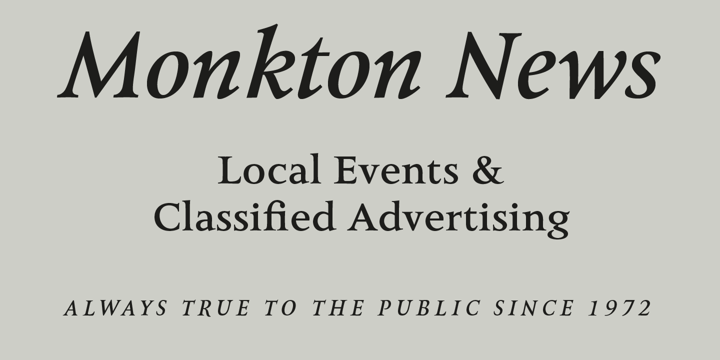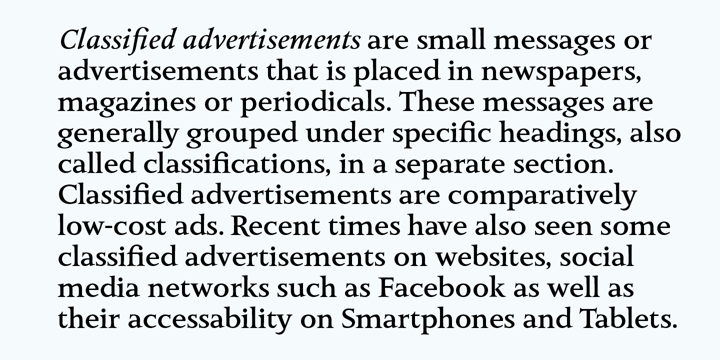
Monkton News
by Club Type
The Monkton News Font Family was designed by Adrian Williams and published by Club Type. Monkton News contains 2 styles and family package options.
This classified version of Monkton, with its expanded proportions and extended serifs can be used at small sizes for classified advertising, newspaper text or larger displays. Its semi-medium weight (heavier than Book weight) makes it robust to be legible when smaller and cope with various printing methods.
The inspiration for this typeface family came from my childhood experiences at Monkton, amidst an historic part of the South West of England.
Studies of the original incised capitals of the Trajan column in Rome were analysed and polished for this modern version. The lower case letterforms and numerals were then created in sympathy, taking their proportions from the incised letters of local gravestones.
Its name honours not only the area where the original alphabet was conceived and drawn, but also the people responsible for fostering my initial interest in letters.